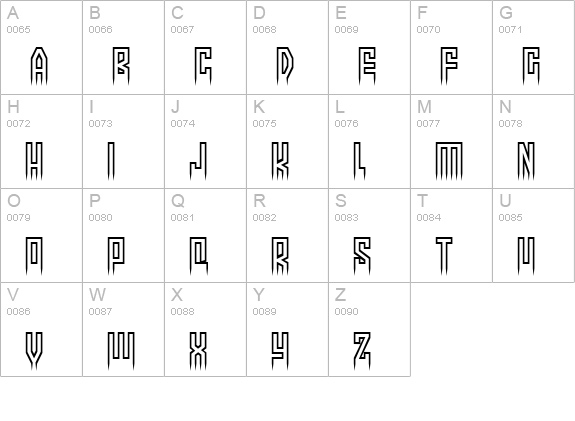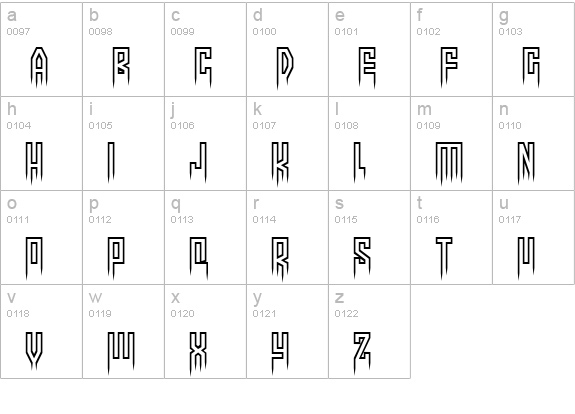
More than human Font Details
The More than Human font is a captivating and modern typeface that transcends traditional design boundaries with its unique blend of sleek lines and bold character. This font exudes a sense of power and sophistication, making it perfect for projects that require a touch of elegance and creativity. With its futuristic aesthetic and dynamic presence, More than Human stands out as a versatile and eye-catching choice for various design applications. Whether you're working on branding, advertising, or editorial projects, this font will elevate your designs to new heights. What's even better is that More than Human is available for free download at FontsMarket.com. So, you can easily access this stunning font and incorporate it into your projects without any hassle. Don't miss out on the opportunity to enhance your design work with the More than Human font today!